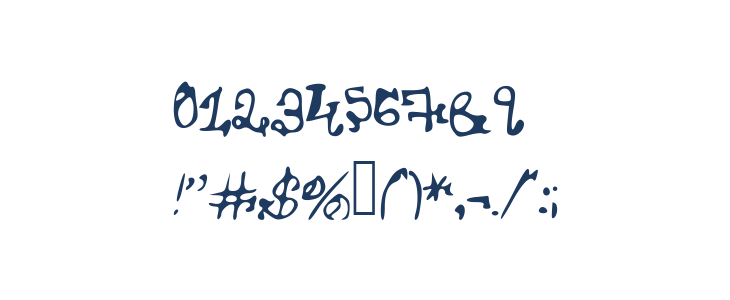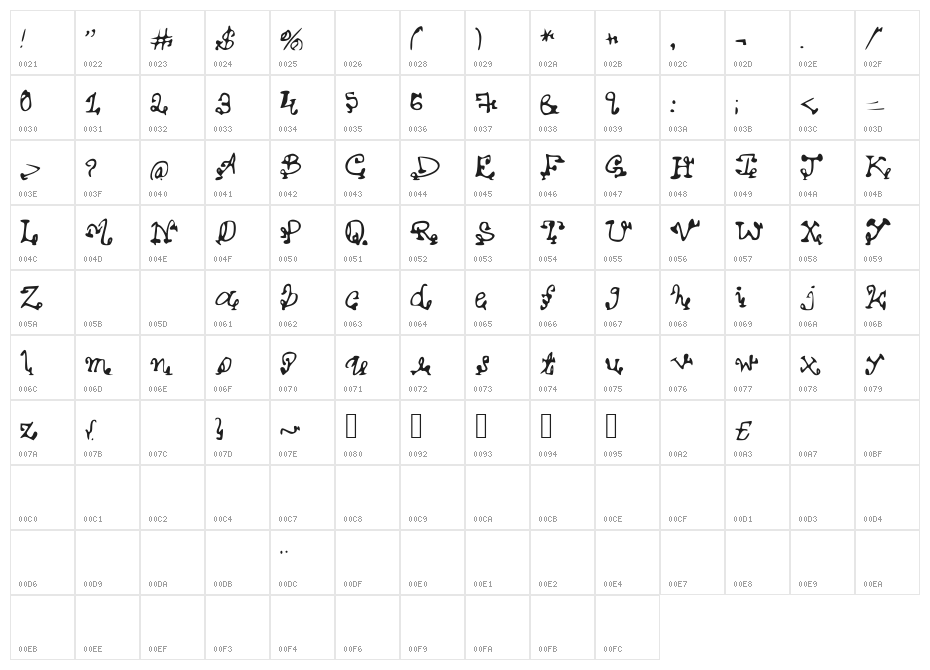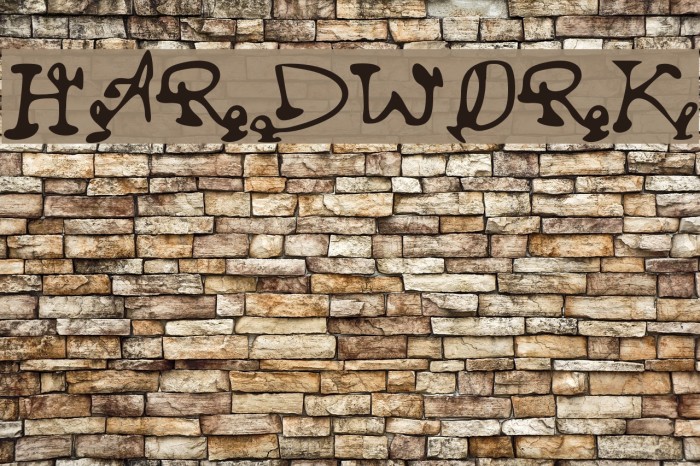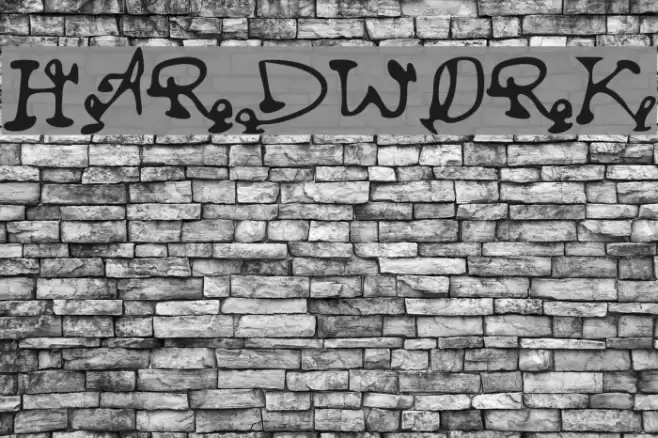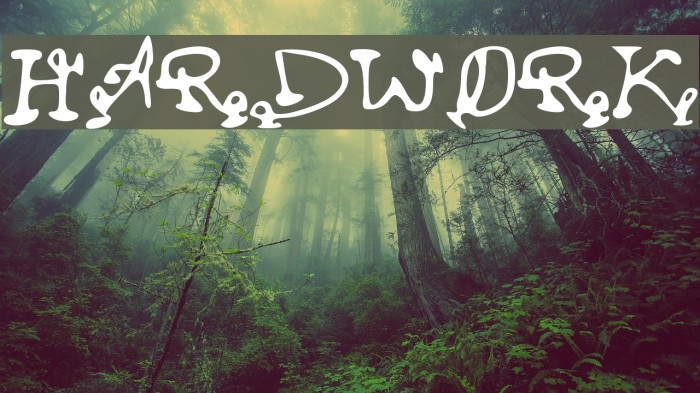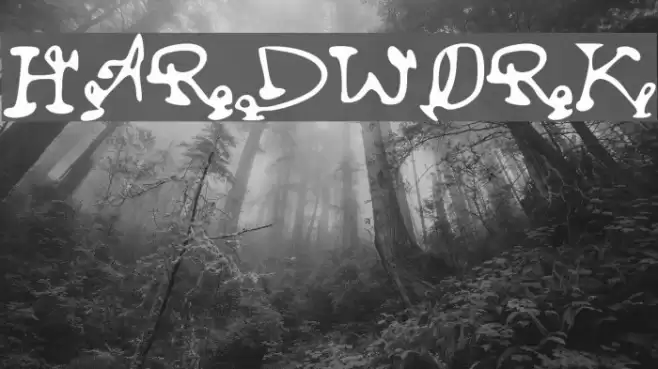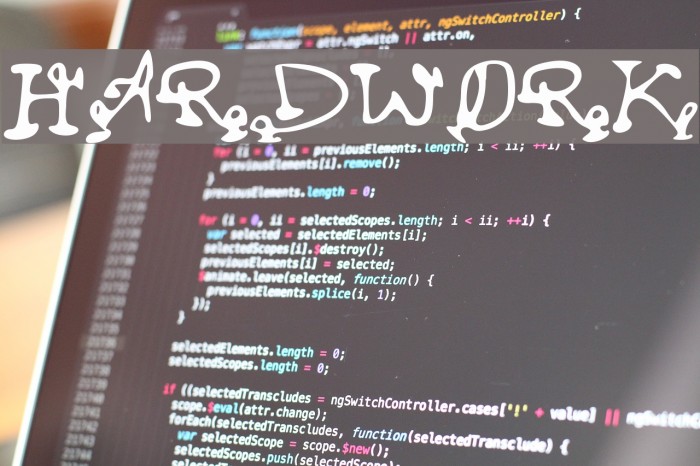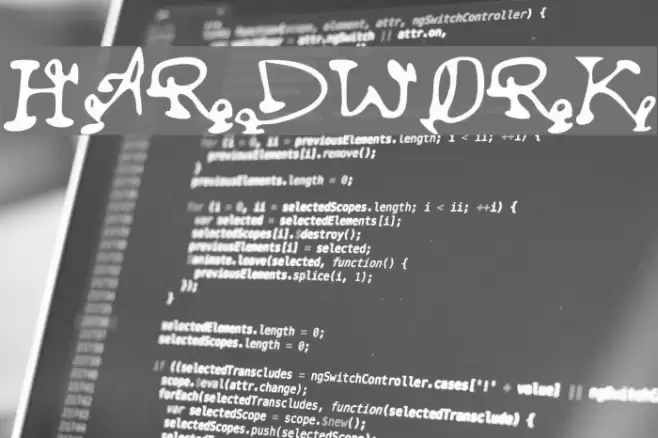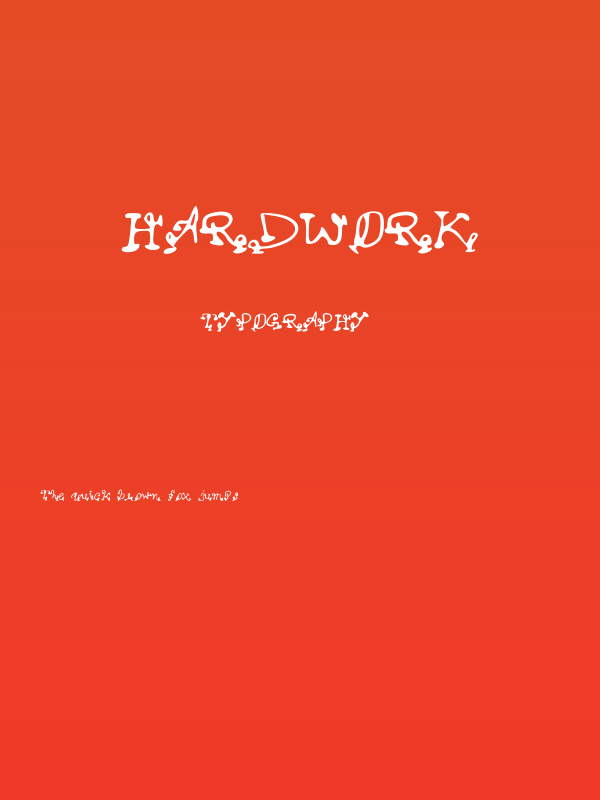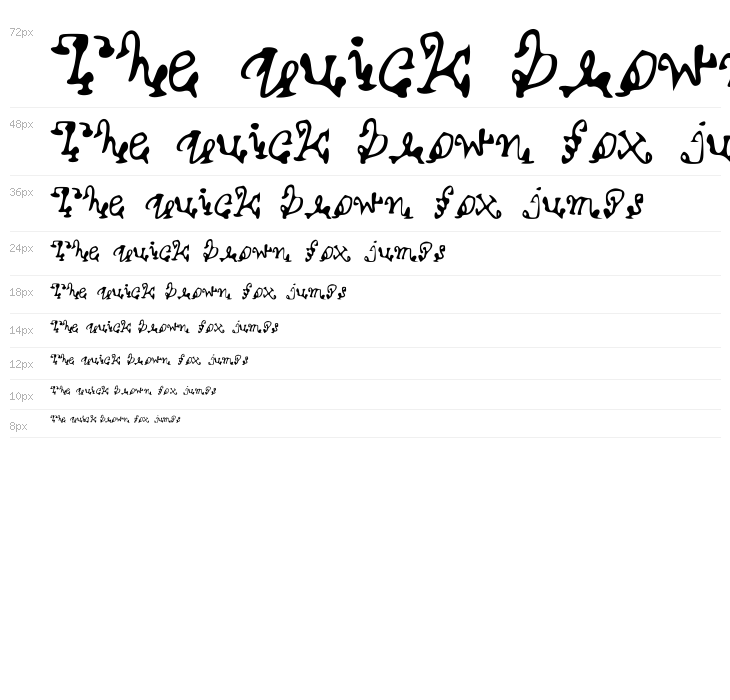
HARDWORK Font
HARDWORK Description
This font features a highly decorative and artistic style, characterized by its intricate and whimsical letterforms. Each character is uniquely crafted with elaborate curves and flourishes, giving it a playful yet sophisticated appearance. The uppercase and lowercase letters maintain a consistent theme, with exaggerated serifs and swirls that create a sense of movement and fluidity. Numbers and special characters are equally ornate, ensuring a cohesive look across all elements. The overall design is bold and eye-catching, making it ideal for projects that require a touch of elegance and creativity.
Proposed ProjectsIdeal for creative projects such as invitations, greeting cards, posters, and branding materials where a decorative and unique typeface is desired.